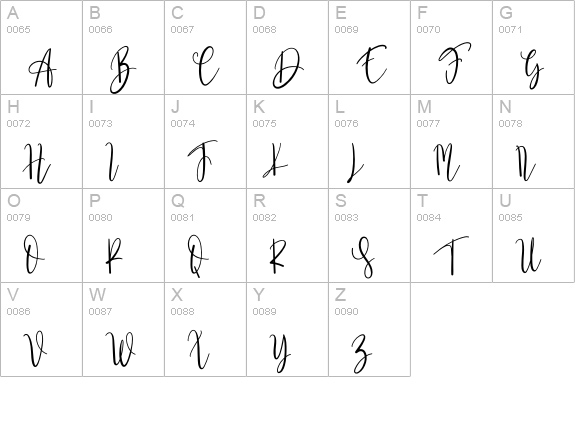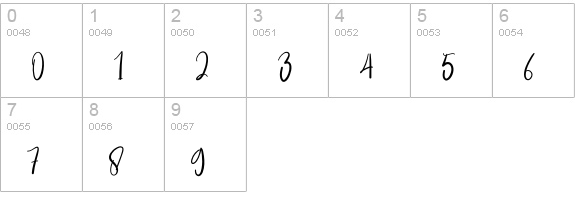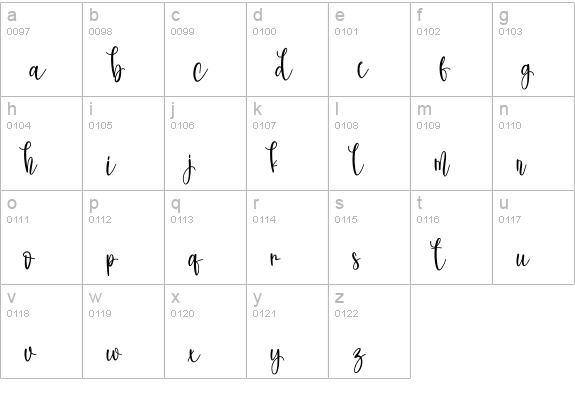
Happynes is a free for personal use font in the Script > Handwritten category, designed by scratchones. It has been downloaded 1 times and is available for Windows, Mac and Linux.
Introducing Happynes Font, a delightful and versatile typeface that exudes joy and positivity with its playful and whimsical design. This charming font is perfect for adding a touch of happiness to your projects, whether it be greeting cards, posters, invitations, or branding materials.
What sets Happynes Font apart is its unique hand-drawn style that radiates warmth and friendliness. The smooth curves and flowing lines give this font a lively and dynamic appearance that is sure to brighten up any text.